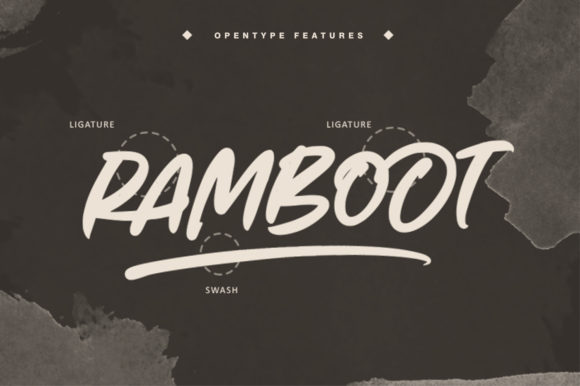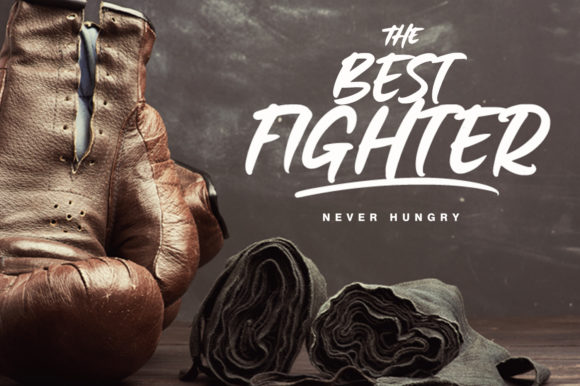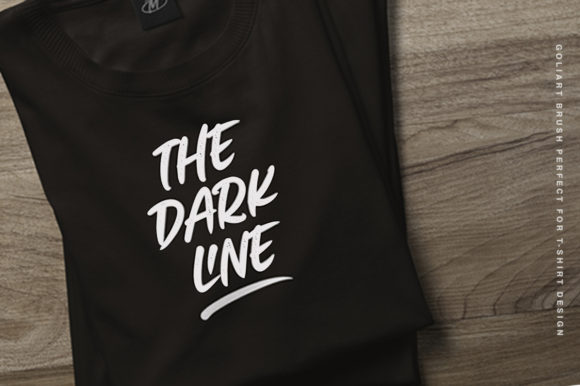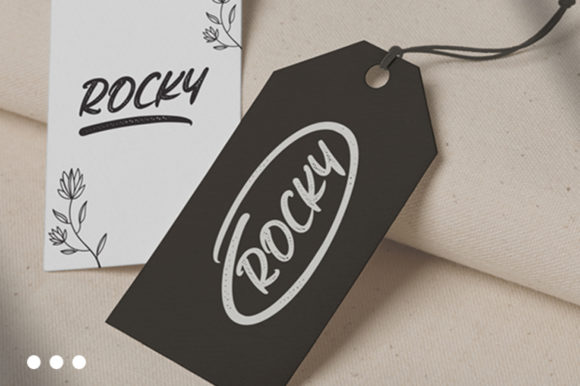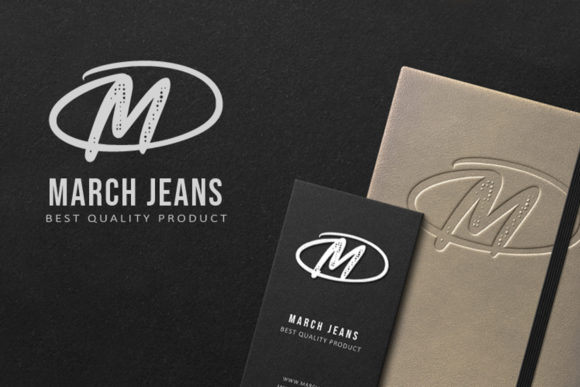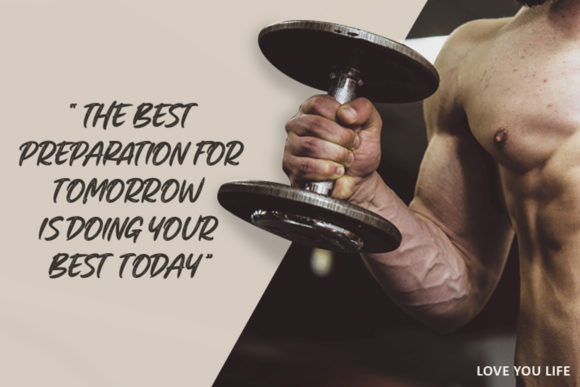
Goliart Brush Font: Elevate Your Designs with Authentic Hand-Drawn Strokes
Are you tired of using the same old fonts in your design projects? Look no further than the Goliart Brush Font, a display style font that brings a touch of authenticity and adventure to your creations. With its hand-drawn strokes, this font is perfect for designers and crafters looking to add a unique and personal touch to their work.
What is Goliart Brush Font?
Goliart Brush Font is a carefully crafted display font that mimics the look and feel of hand-drawn letters. Its authentic strokes and imperfections give it a distinctive character that sets it apart from more traditional fonts. This font is ideal for use in a variety of design projects, from adventure-themed branding and advertising to clothing designs, merchandise, and more.
Perfect for Adventure-Themed Designs
If you’re working on a project that requires a bold and adventurous look, Goliart Brush Font is the perfect choice. Its rugged, hand-drawn strokes evoke a sense of excitement and exploration, making it ideal for use in designs that require a sense of daring and courage. Whether you’re creating a logo for an outdoor gear company or designing a poster for a music festival, this font is sure to make your project stand out.
Versatile and Easy to Use
One of the best things about Goliart Brush Font is its versatility. It can be used in a wide range of design projects, from digital graphics to print materials. The font is also incredibly easy to use, with a simple and intuitive design that makes it easy to customize and adjust to your needs.
Ideal for Clothing Designs and Merchandise
Goliart Brush Font is also perfect for use in clothing designs and merchandise. Its bold, eye-catching strokes make it ideal for use on t-shirts, hoodies, and other apparel, while its durability and versatility make it suitable for use on a wide range of merchandise, from bags and hats to mugs and phone cases.
Other Uses for Goliart Brush Font
In addition to its use in adventure-themed designs, clothing designs, and merchandise, Goliart Brush Font can also be used in a variety of other projects, including:
- Book covers and magazine layouts
- Video thumbnails and title sequences
Why Choose Goliart Brush Font?
So why choose Goliart Brush Font for your design projects? Here are just a few reasons:
- Unique and authentic look: Goliart Brush Font has a distinctive, hand-drawn look that sets it apart from more traditional fonts.
- Versatility: This font can be used in a wide range of design projects, from digital graphics to print materials.
- Easy to use: Goliart Brush Font is simple and intuitive to use, with a design that makes it easy to customize and adjust to your needs.
- High-quality design: This font is carefully crafted to ensure that it looks great in any design project.
| Font Name | Goliart Brush Font |
| Author | Semauku |
If you’re looking for a font that will add a touch of adventure and authenticity to your design projects, look no further than Goliart Brush Font. With its hand-drawn strokes, versatile design, and ease of use, this font is perfect for designers and crafters looking to create unique and eye-catching designs. Whether you’re working on a branding project, creating merchandise, or designing a poster, Goliart Brush Font is the perfect choice.